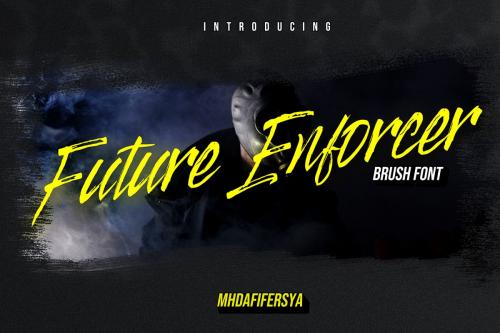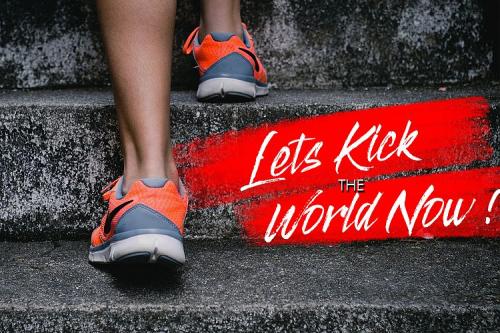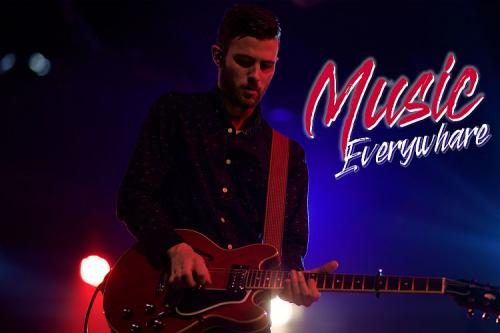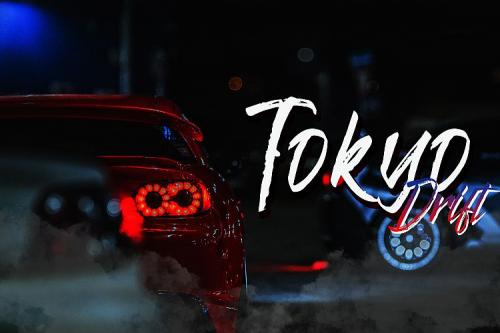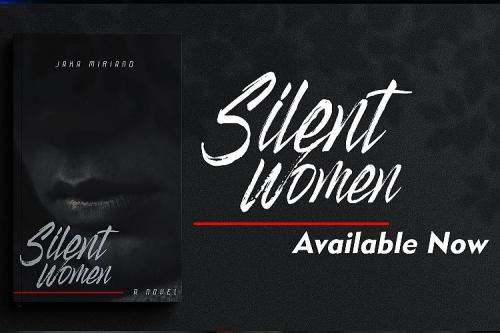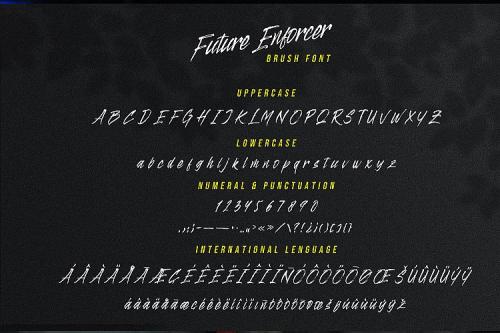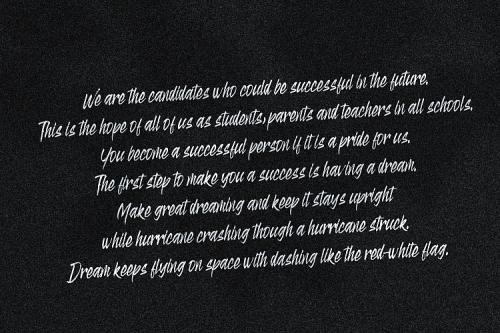
Future Enforcer, from Mhdafifersya, is a handmade dry brush script font. This font comes with a natural and organic flow, making the letters look cool and classy.
Future Enforcer is a great choice for many different projects such as logos & branding, invitation, stationery, wedding designs, social media posts, advertisements, product packaging, product designs, label, photography, watermark, special events and more.